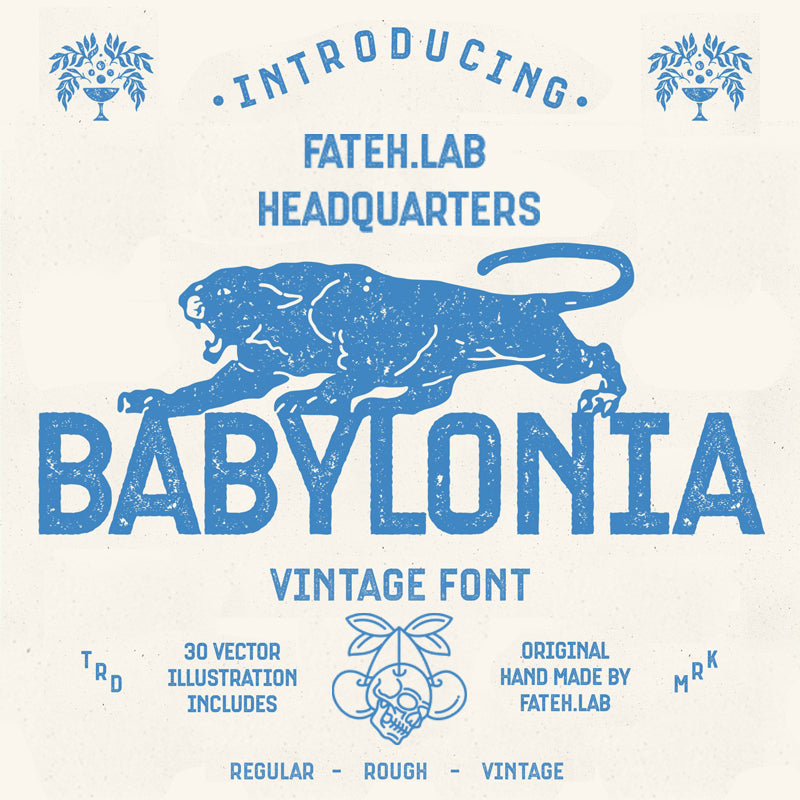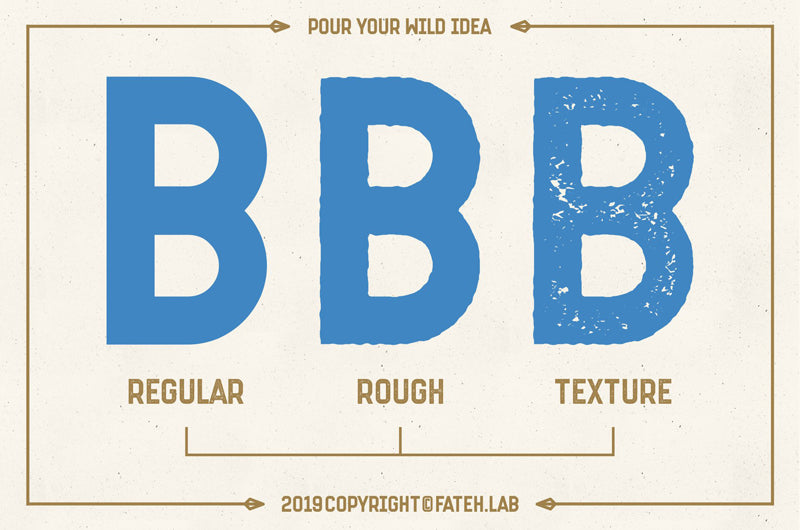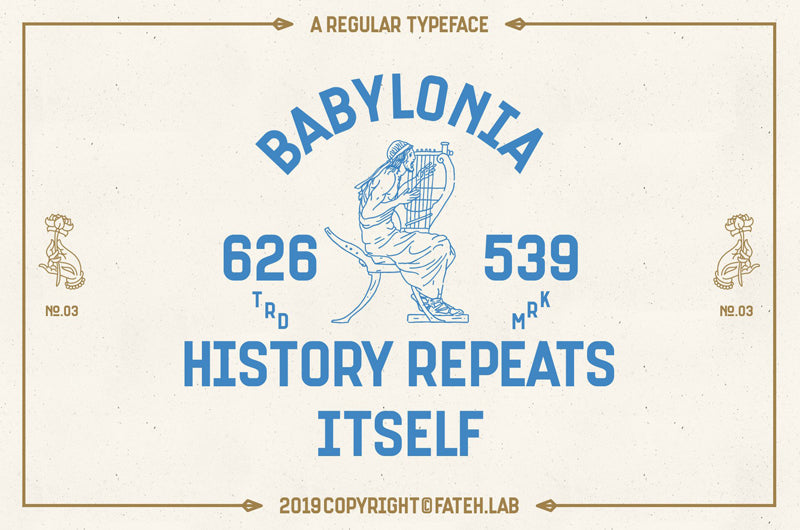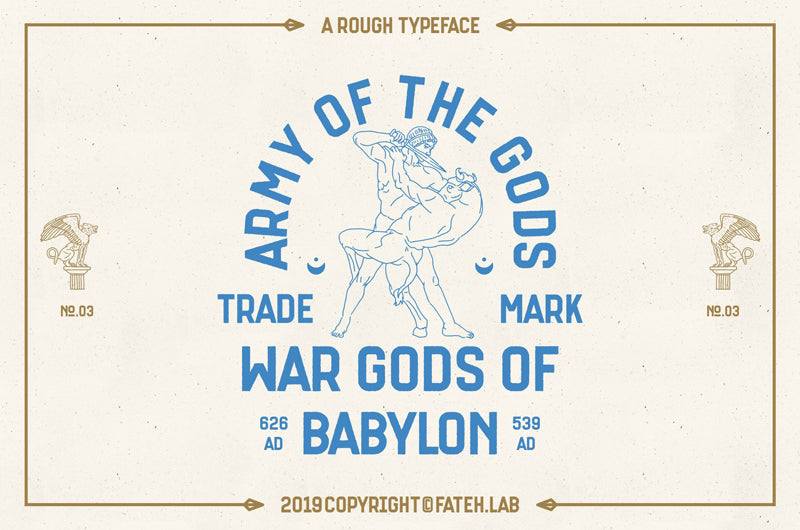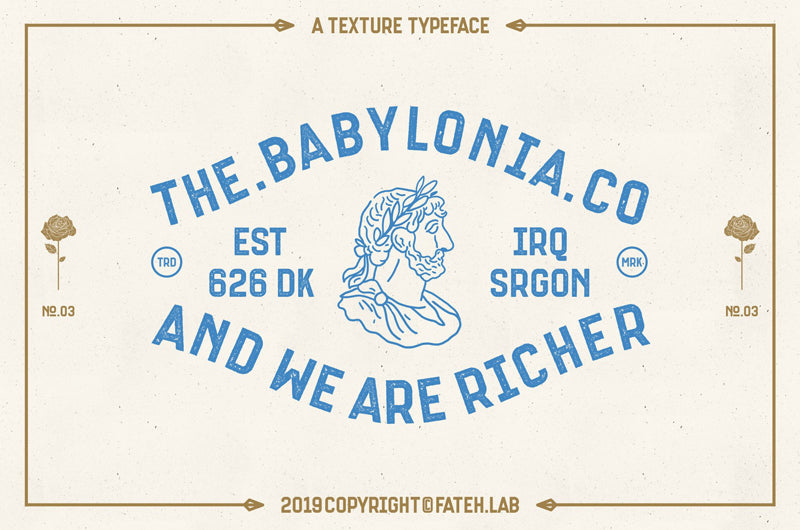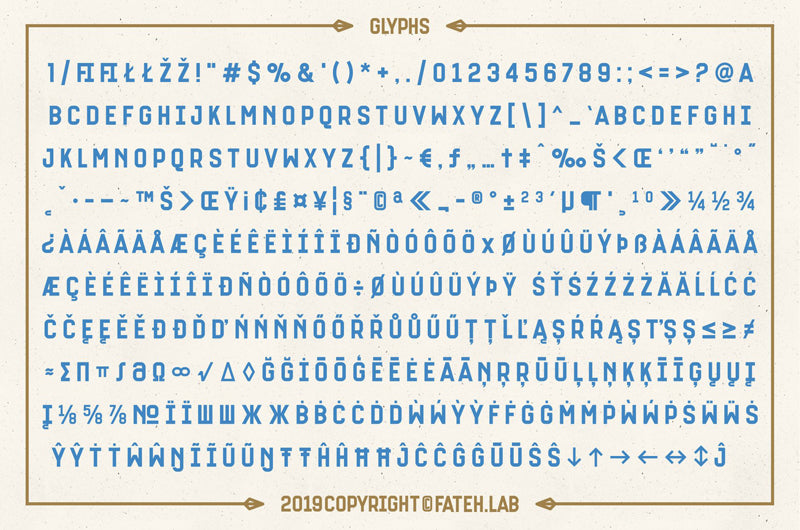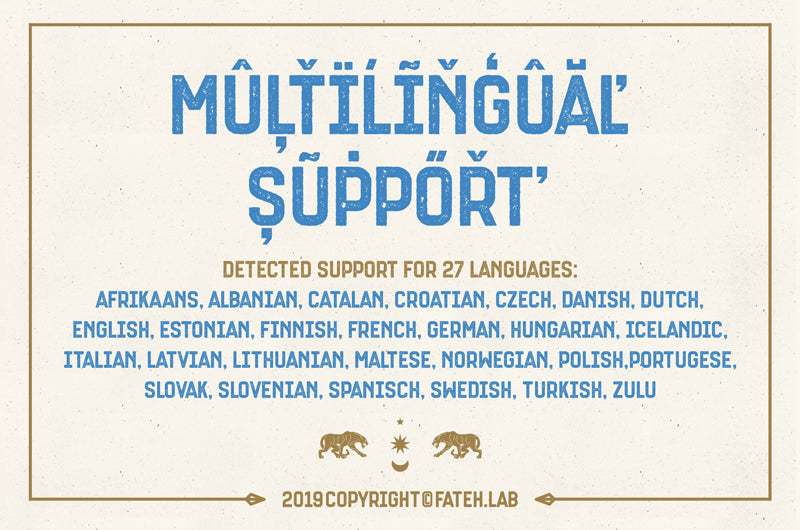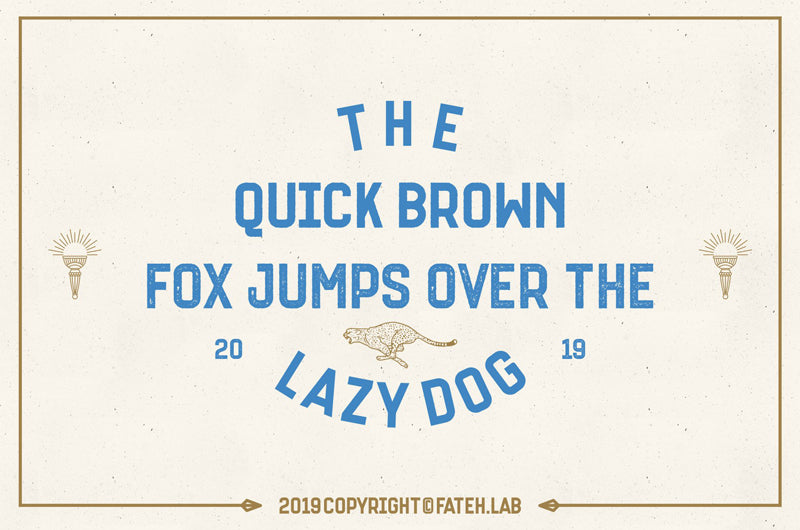
Babylonia Vintage Font
Babylonia's bold presence and timeless elegance captivate. This robust sans serif font was created to meet the needs of extraordinary design projects. Babylonia offers the perfect solution for crafting bold and confident ideas, establishing a brand identity, or producing attention-grabbing posters. Both editorial and web titles benefit from its eye-catching style.
Characteristics:
Babylonia Regular
Babylonia Rough
Babylonia Texture
Multilingual support included
A flexible 30-part vector illustration pack compatible with various design programs is included with Babylonia, ensuring even more creative options.
Babylonia Vintage Font is a robust sans serif typeface available in Regular, Rough, and Texture styles, featuring multilingual support. It includes a 30-part vector illustration pack compatible with various design programs, making it suitable for diverse design projects.